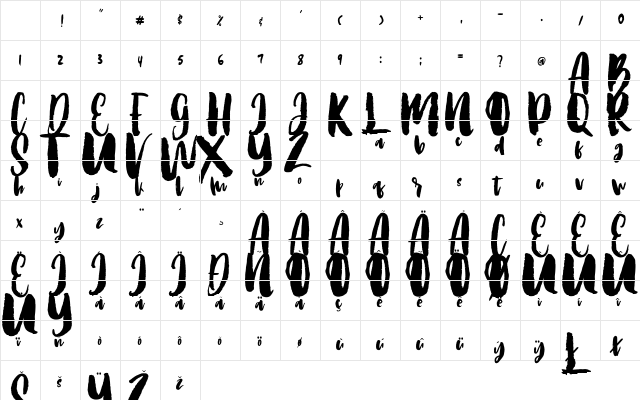
you are stranger is a composed and adaptable typeface that performs quietly and consistently across a wide range of design contexts.
Pro Tip: Use you are stranger in both headline and body roles to test its range before committing to a single application.